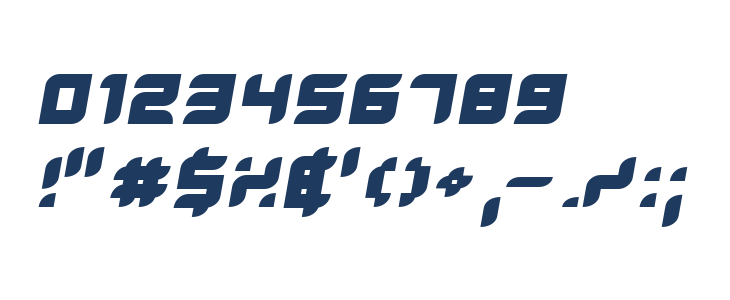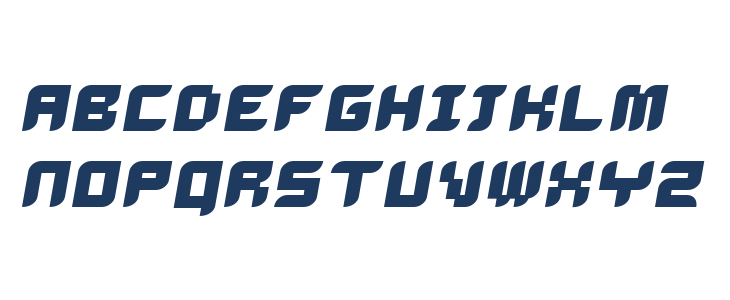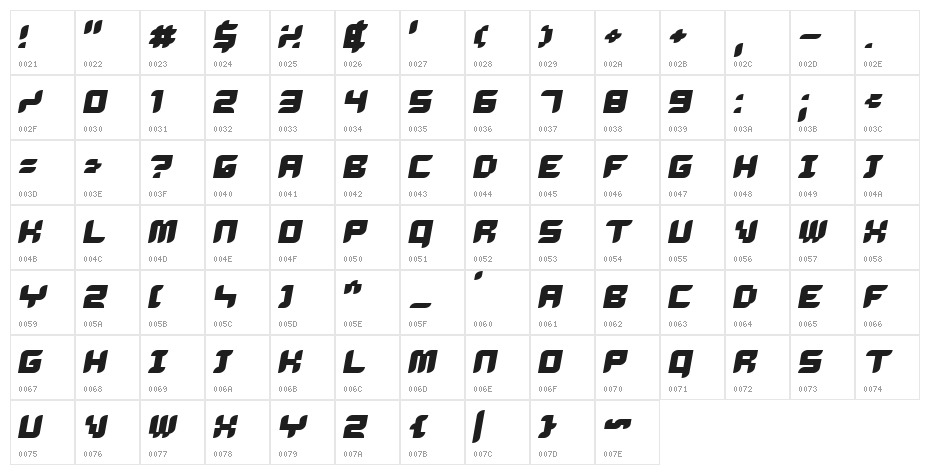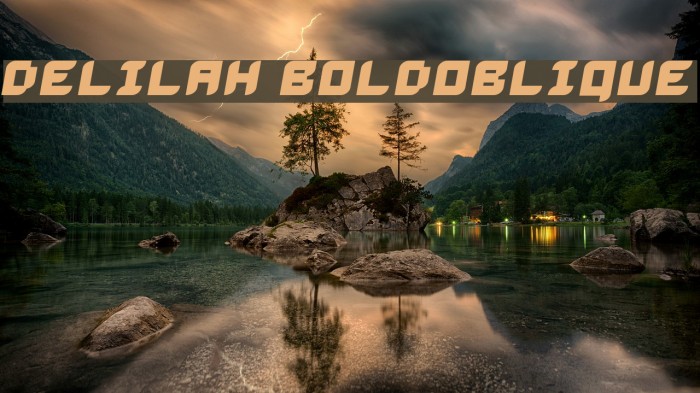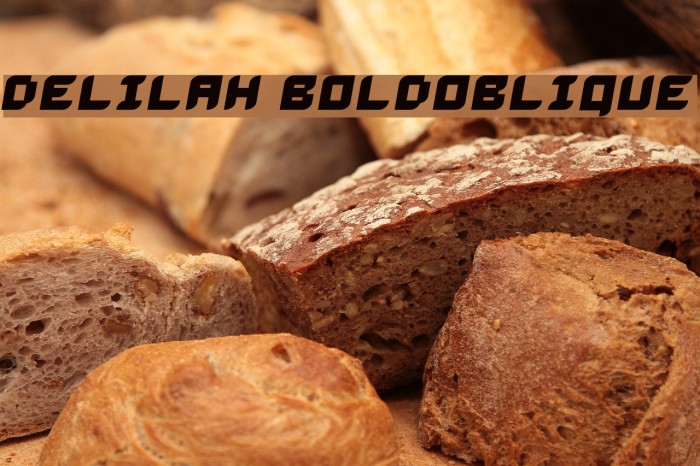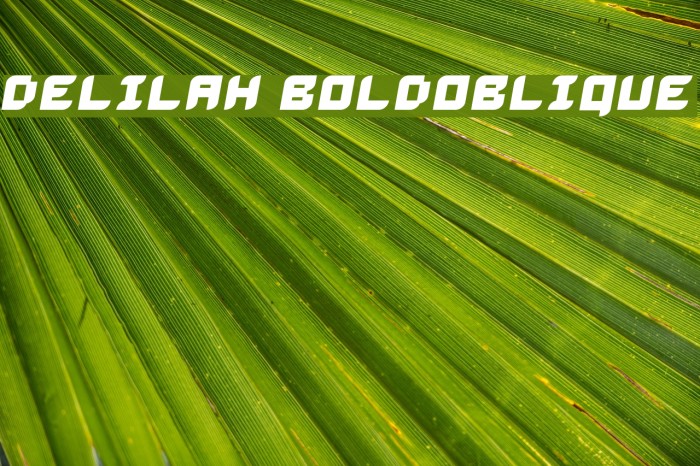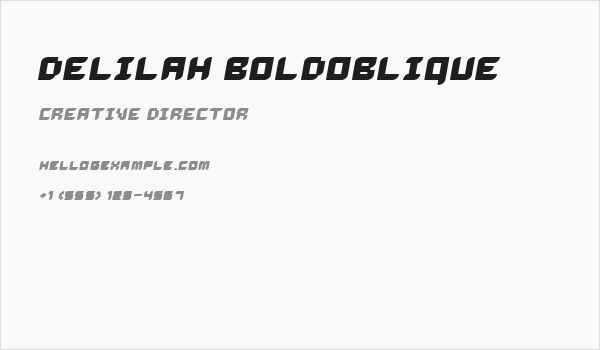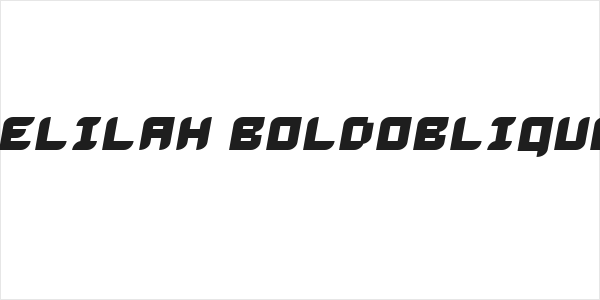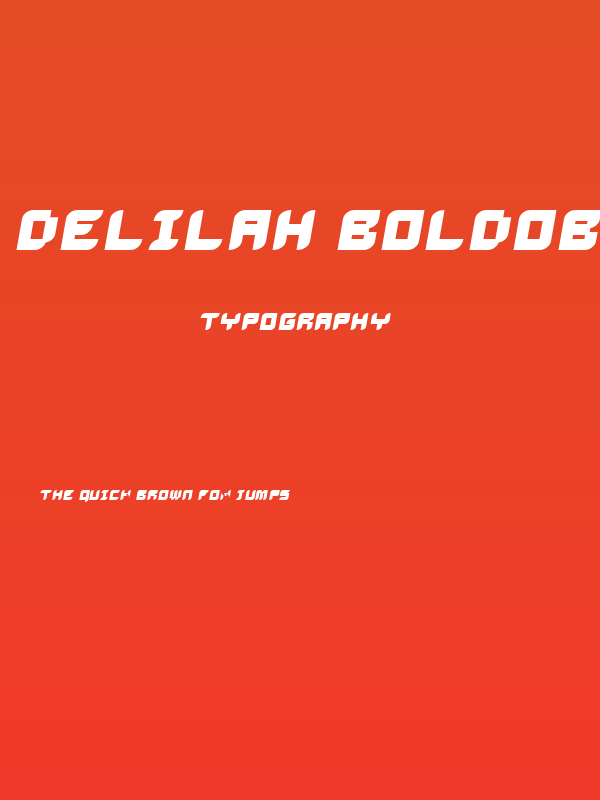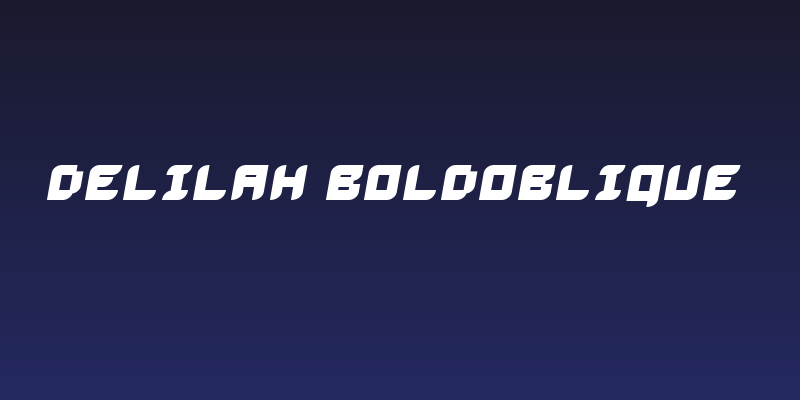
Delilah BoldOblique Font
Delilah BoldOblique Description
This font features a bold and oblique style, characterized by its strong, angular lines and dynamic slant. The uppercase and lowercase letters maintain a consistent weight, providing a sense of uniformity and strength. The numerals and special characters follow the same bold and slanted design, ensuring a cohesive look across all text elements. The font's geometric shapes and sharp edges give it a modern and futuristic appearance, making it stand out in any design. Its boldness and oblique nature make it ideal for attention-grabbing headlines and impactful statements.
| Proposed Projects | Ideal for branding, sports team logos, posters, and any project requiring a strong, modern aesthetic. |